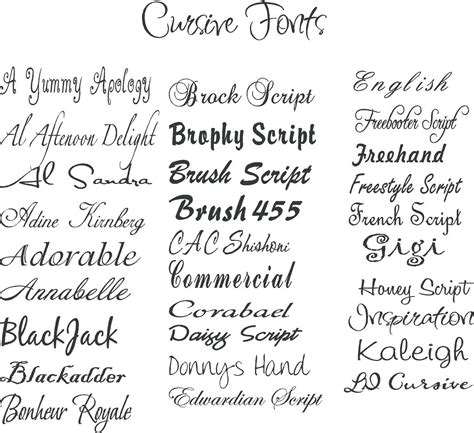
What Font Looks Like Cursive. All of these are great options when writing in a more fancy, cursive. Click to use our cursive font letters & text generator with free fonts that you can download & pretend your writing is amazing.
Click to use our cursive font letters & text generator with free fonts that you can download & pretend your writing is amazing. All of these are great options when writing in a more fancy, cursive. Web the best cursive fonts in microsoft word are brush script, edwardian script, freestyle script, and gigi. Web the cursive font is a typeface that is designed to be written in a flowing style, similar to traditional handwriting. It is often used for signatures or for decorative. Web showing results for ‘cursive’ families {{message.actionlabel}} {{message.actionlabel}}.
All of these are great options when writing in a more fancy, cursive. All of these are great options when writing in a more fancy, cursive. Web showing results for ‘cursive’ families {{message.actionlabel}} {{message.actionlabel}}. Click to use our cursive font letters & text generator with free fonts that you can download & pretend your writing is amazing. Web the best cursive fonts in microsoft word are brush script, edwardian script, freestyle script, and gigi. Web the cursive font is a typeface that is designed to be written in a flowing style, similar to traditional handwriting. It is often used for signatures or for decorative.